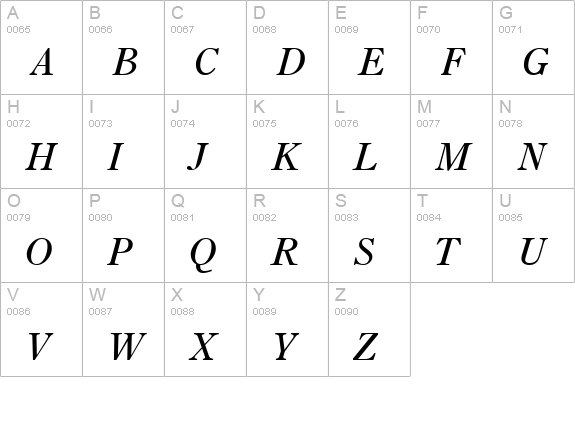
Partition SSi Italic is a distinctive, italic variant in the Partition typeface family \xE2\x80\x94 well suited to design and typography projects.
Partition SSi Italic font is a versatile and elegant typeface that adds a touch of sophistication to any design project. With its sleek and slanted letterforms, this font exudes a sense of modernity and style. Designed with meticulous attention to detail, Partition SSi Italic offers a harmonious balance between legibility and creativity. Its delicate curves and distinctive italic style make it a perfect choice for headings, titles, and branding materials. Whether you're designing a website, a logo, or a print advertisement, this font will effortlessly elevate your design to new heights. One of the best features of Partition SSi Italic font is that it is free. That's right, you can freely download this font at FontsMarket.com. This means that you can enhance your designs without having to worry about any additional costs. The versatility of Partition SSi Italic font allows it to be used in a wide range of design projects. From elegant wedding invitations to sleek corporate presentations, this font will bring a touch of sophistication to any project. Its timeless appeal and contemporary style make it a favorite among designers looking for a font that stands out from the crowd. So why wait? Download Partition SSi Italic font today from FontsMarket.com and start creating stunning designs that leave a lasting impression.